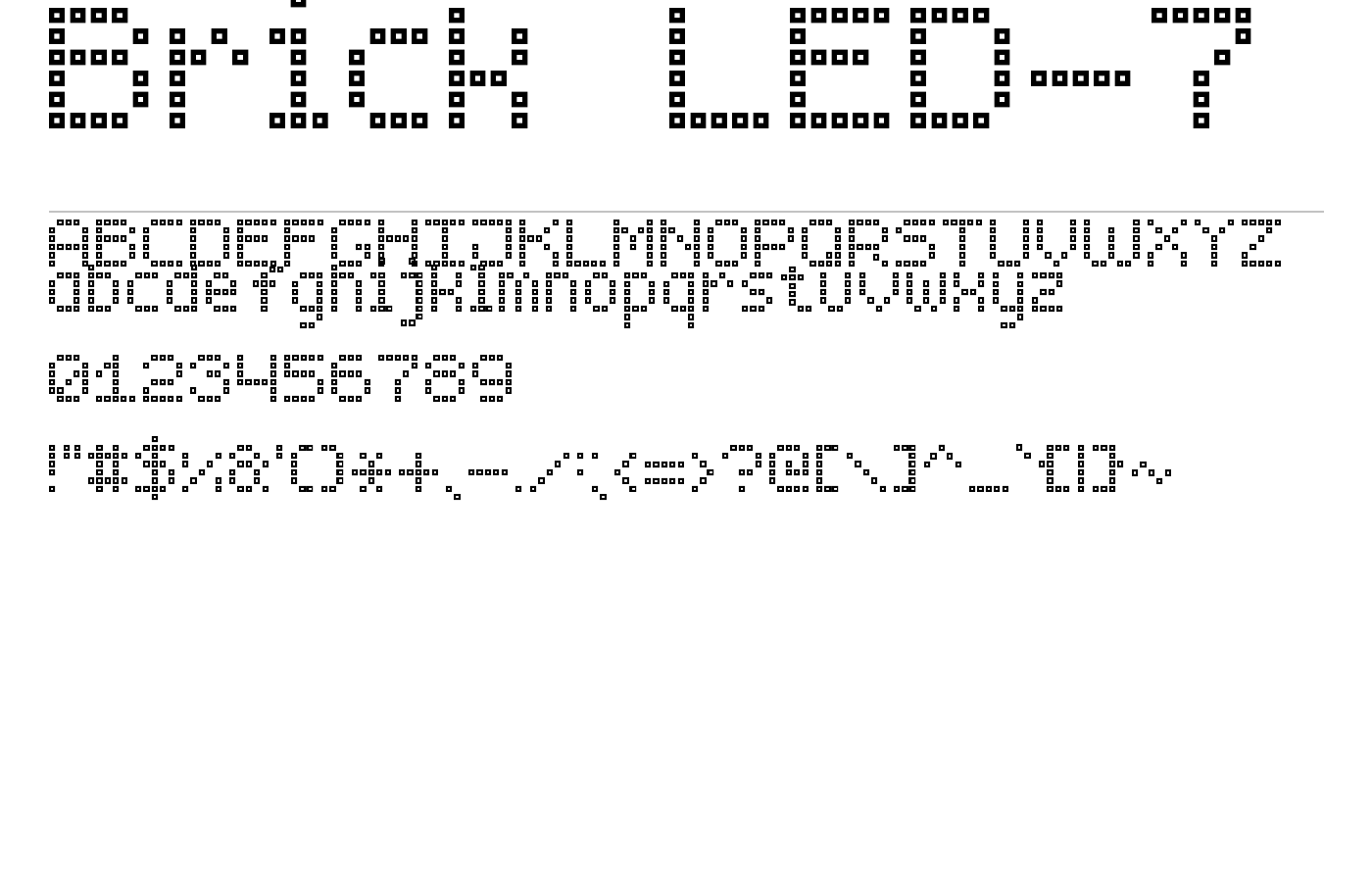
Brick LED-7 is a distinctive pixel-style sans serif font that mimics the look of old LED digital displays with a grid of tiny square "lights." It features a monospaced, regular weight design with a blocky, geometric structure and clean lines that give it a retro, tech-inspired personality. This font is perfect for digital-themed projects, tech branding, and displays where a futuristic yet nostalgic electronic aesthetic is desired.
Brick LED-7 Font
About Brick LED-7 Font
| Font family | Brick LED-7 Font |
| Designer | Sizenko Alexander |